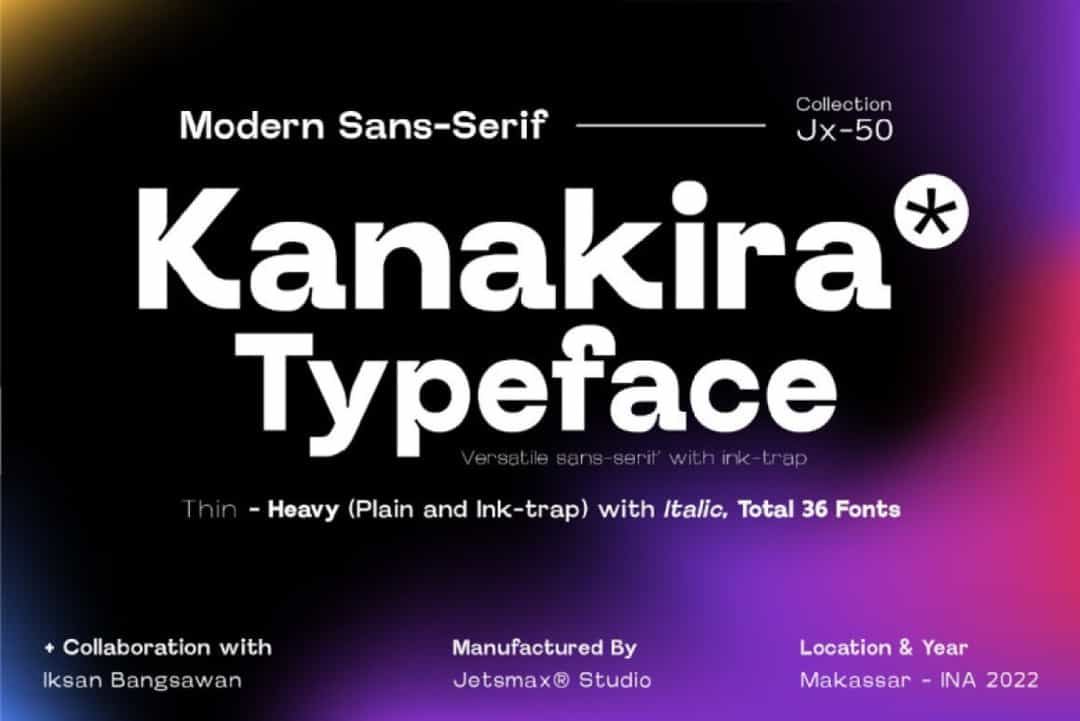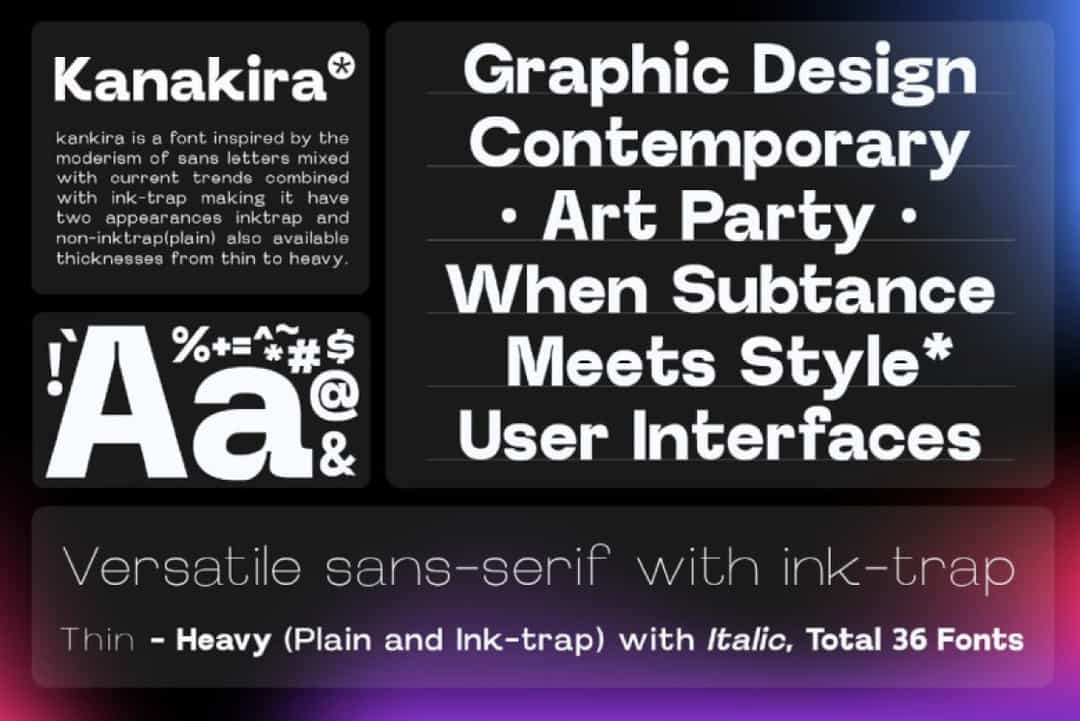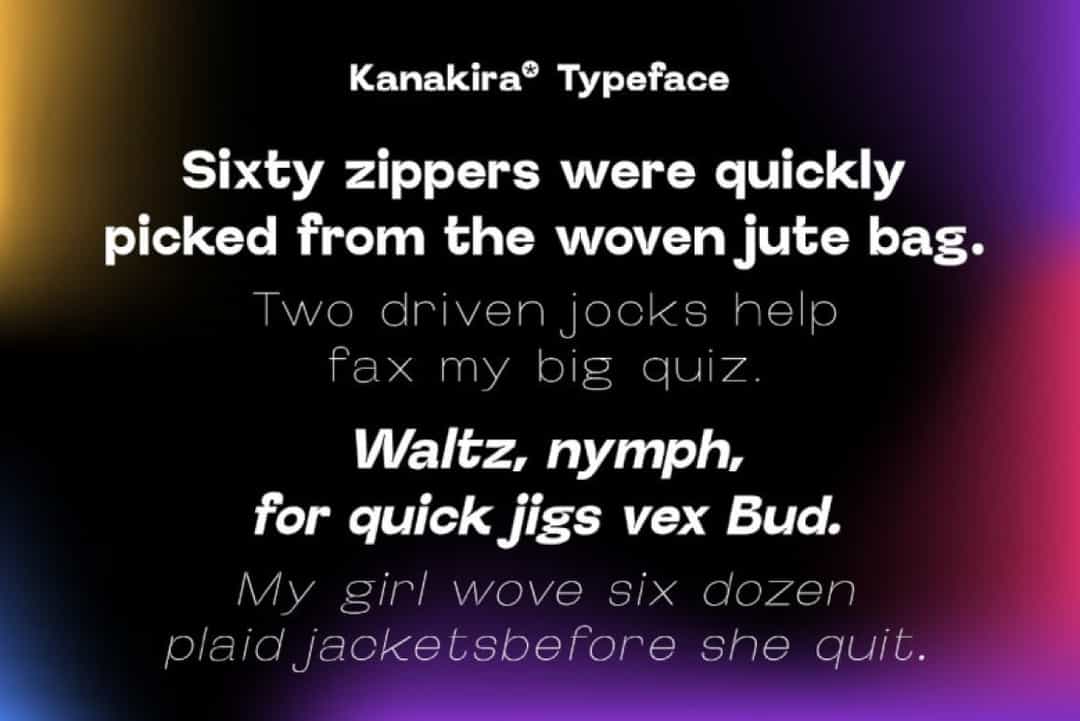
Kanakira can be described as an innovative sans-serif font featuring geometric aspects of neo-grotesque design. Available in three styles, Kanakira will quickly become your go-to font style for any design task imaginable – branding logotype design advertising posters banners graphics signs corporate identity editorial designs etc.